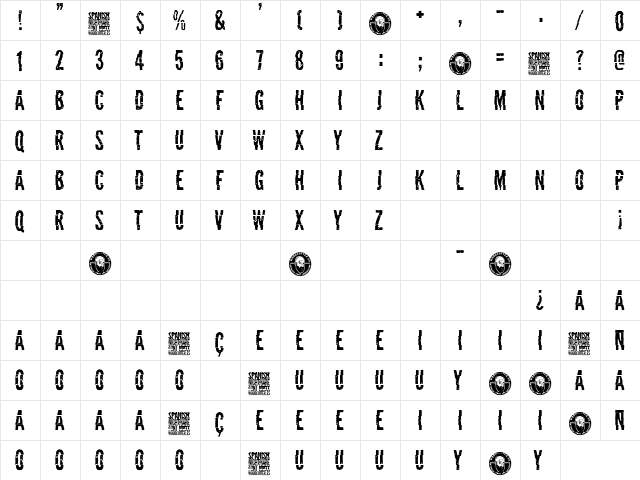
Spanish Nightmare Regular
| Designer | Woodcutter Manero |
Design Context for Spanish Nightmare Typeface
Spanish Nightmare is a composed and adaptable typeface that performs quietly and consistently across a wide range of design contexts.